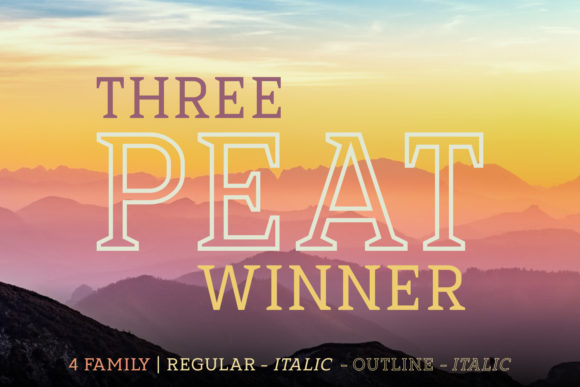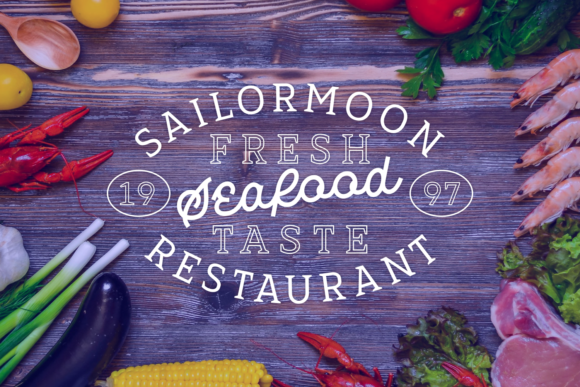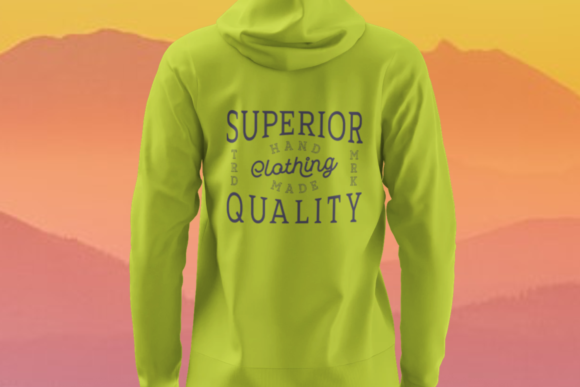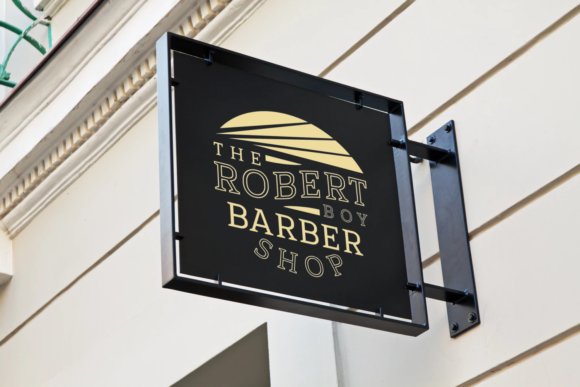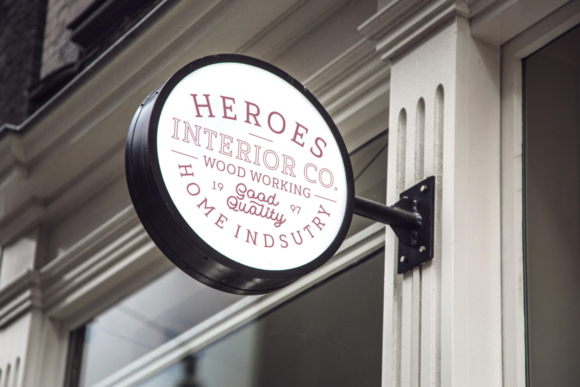
Three Peat Winner Family Font
About Three Peat Winner Family Font
The Three Peat Winner is a fun script family. It includes 4 variations which can be combined perfectly. Give an unique and striking touch to your designs with this amazing font!